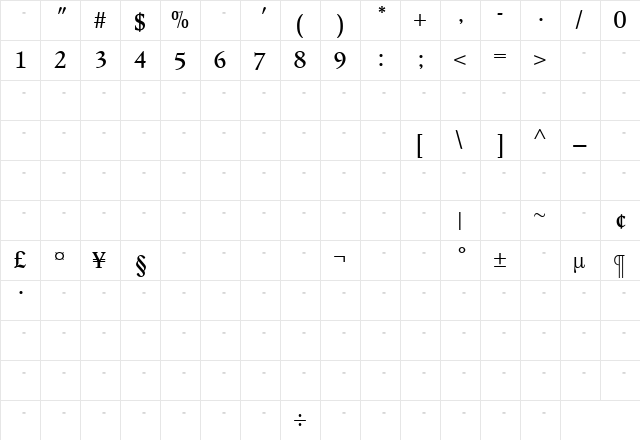
LeightonBoldTab Medium
LeightonBoldTab is a composed and adaptable typeface that performs quietly and consistently across a wide range of design contexts. The heavy weight commands attention and anchors typographic hierarchies.